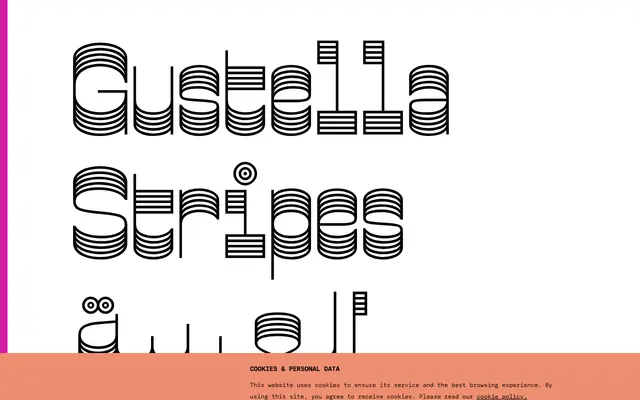
Gustella Stripes Arabic
The striped variant of Thomas Thiemich's Gustella superfamily, combining extreme reverse-contrast letterforms with a horizontal stripe treatment across both Latin and Arabic scripts.
Part of the Gustella superfamily first released in 2019, the Arabic extension arrived in December 2020 to cover both Latin and Arabic scripts with identical metrics across all four weights. The stripe treatment applies a decorative horizontal fill to the already extreme reverse-contrast structure, tracing a lineage from nineteenth-century wood type through hippy-era lettering and on to precision-driven digital design. All four Gustella variants (Solid, Stripes, Inline and Boxed) share metrics, allowing them to be layered or overprinted for compounding effect.
Gustella Stripes Arabic is a display typeface built on reverse-contrast, ultra-high-contrast letter forms with a striped decorative treatment applied across both Latin and Arabic scripts. It belongs to no conventional classification and is best described as an ornamental display type.